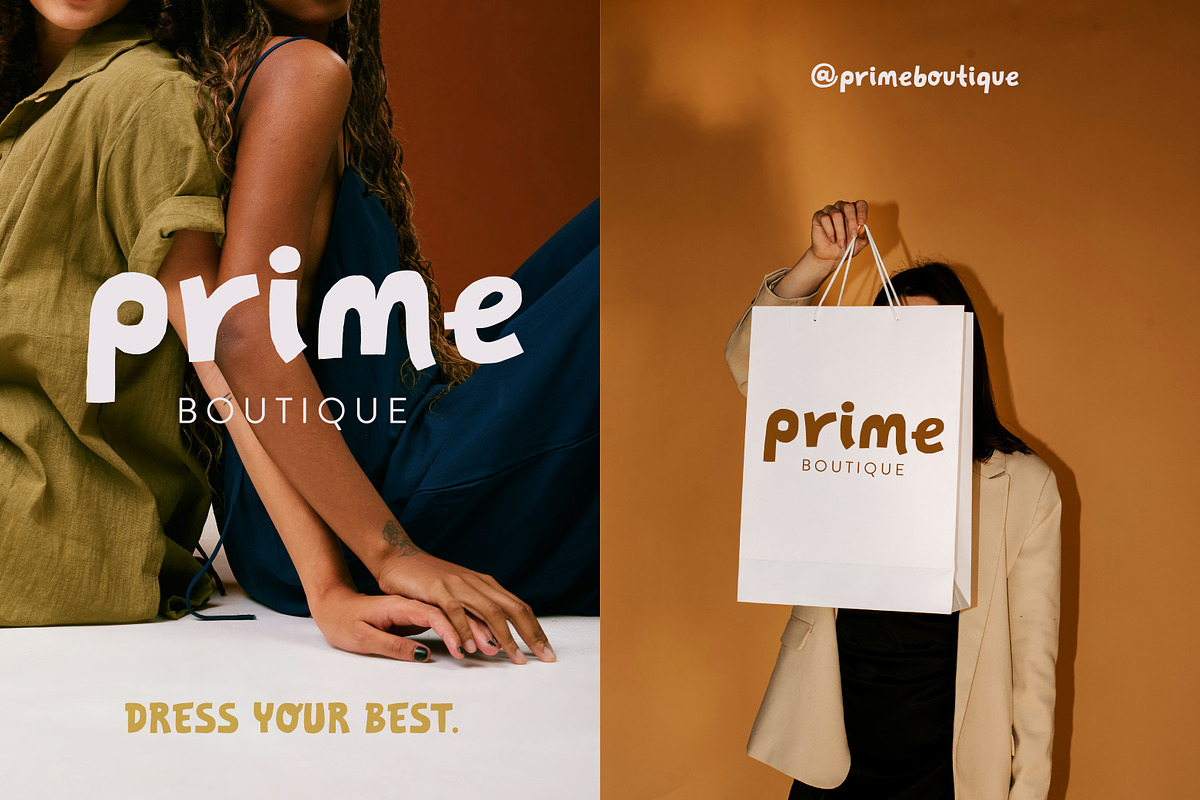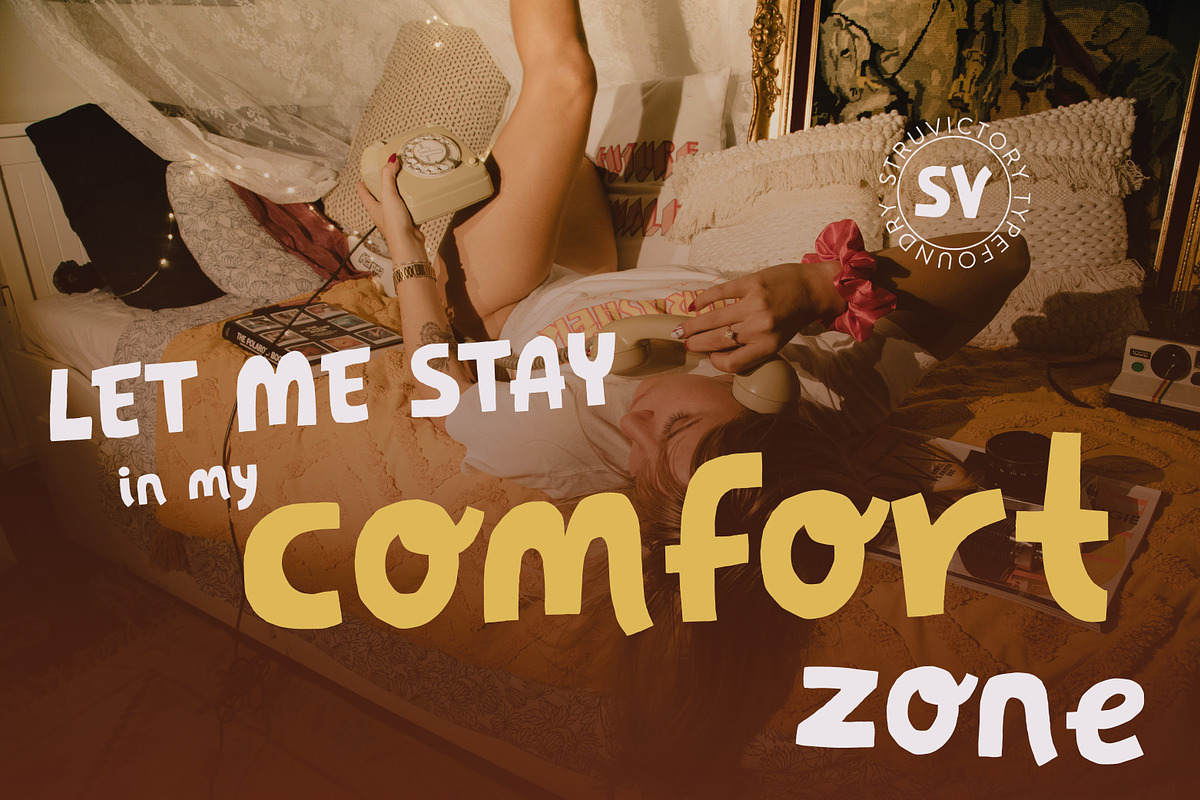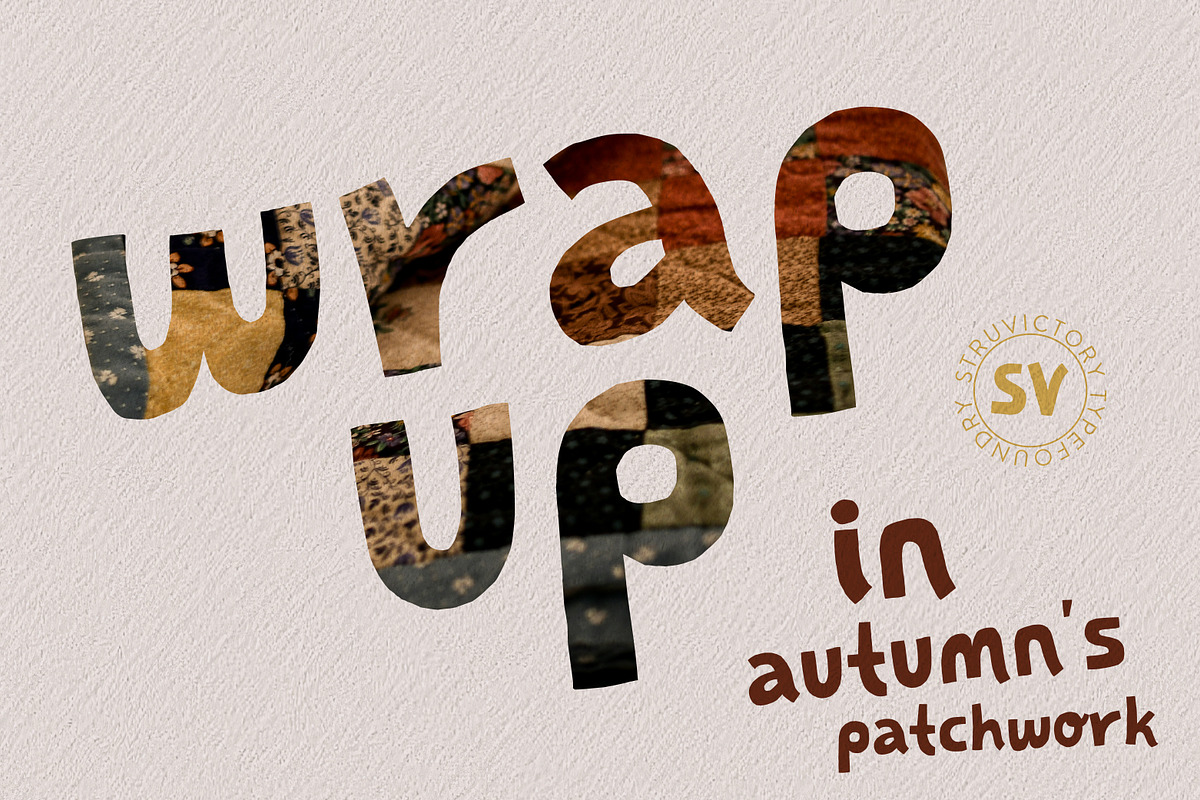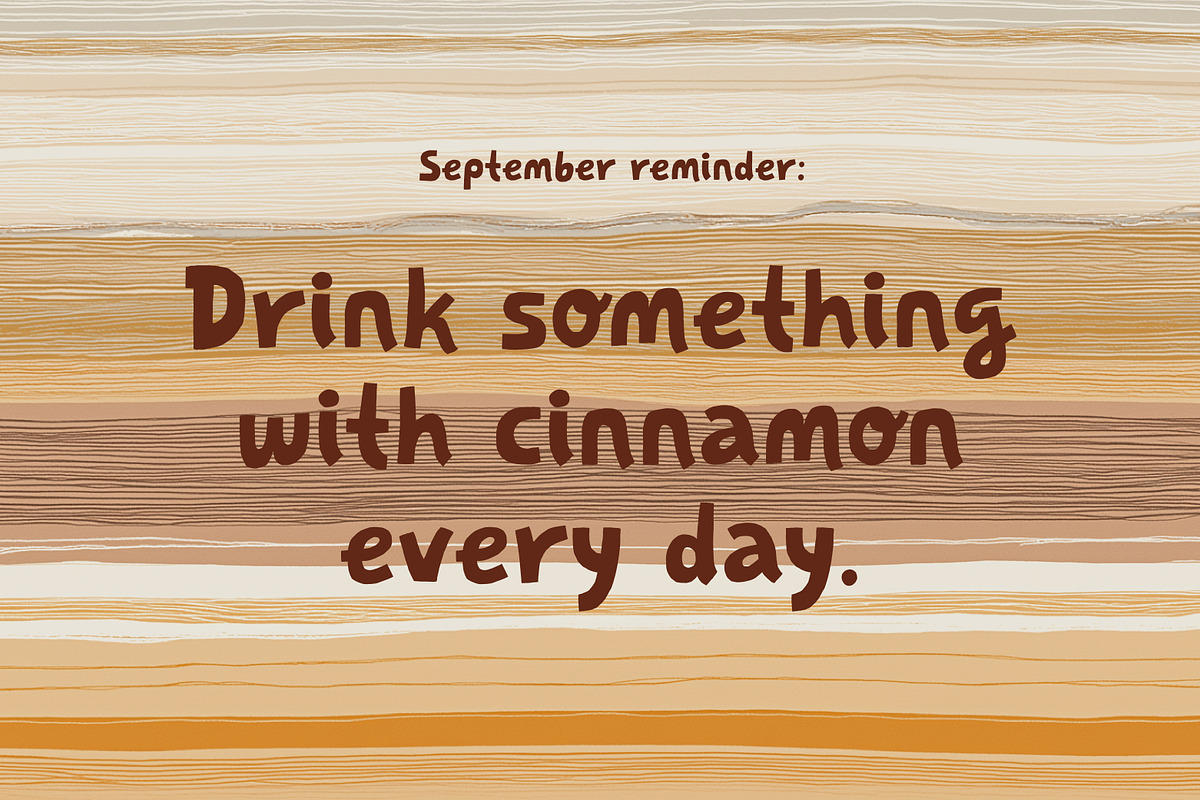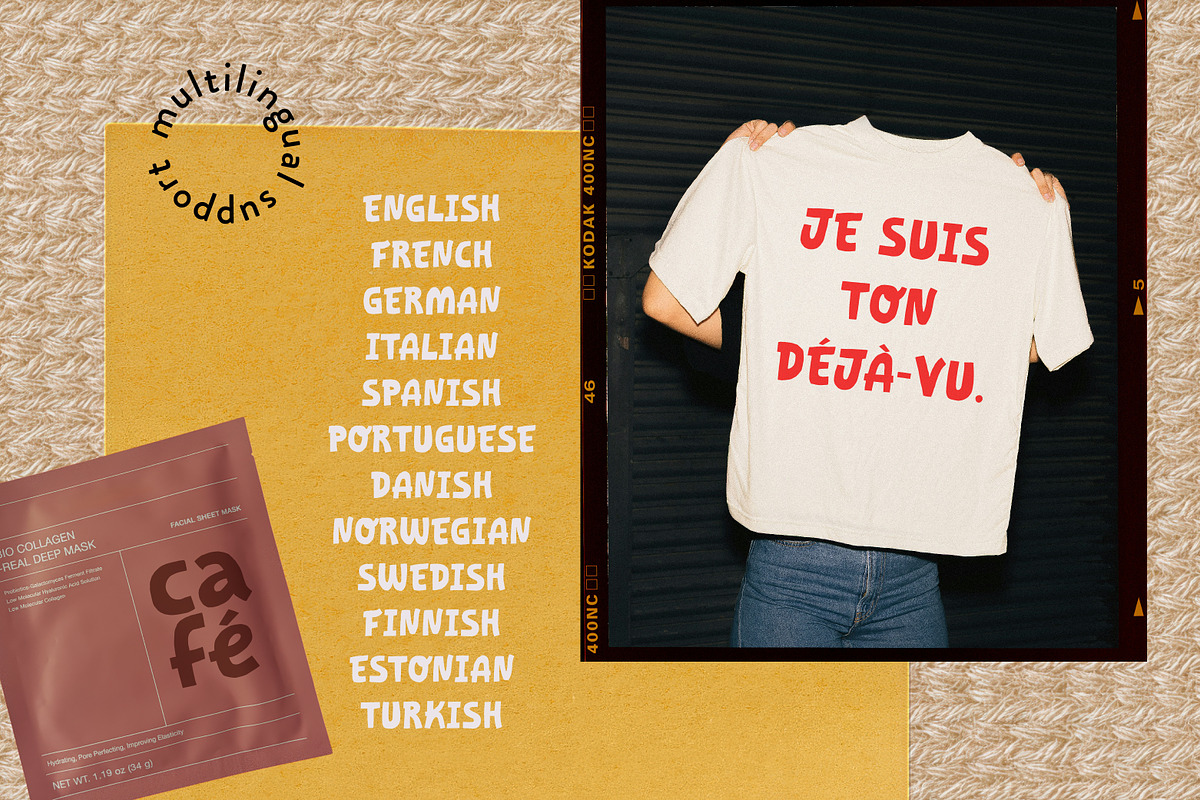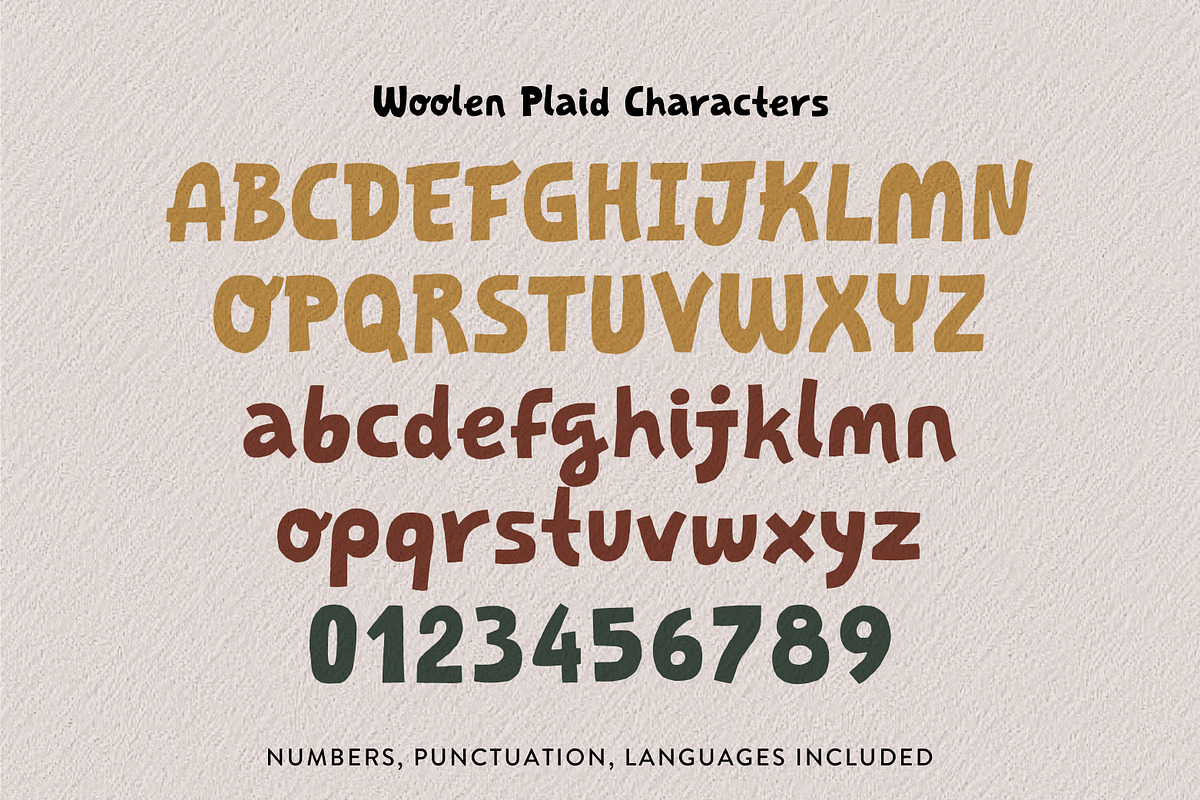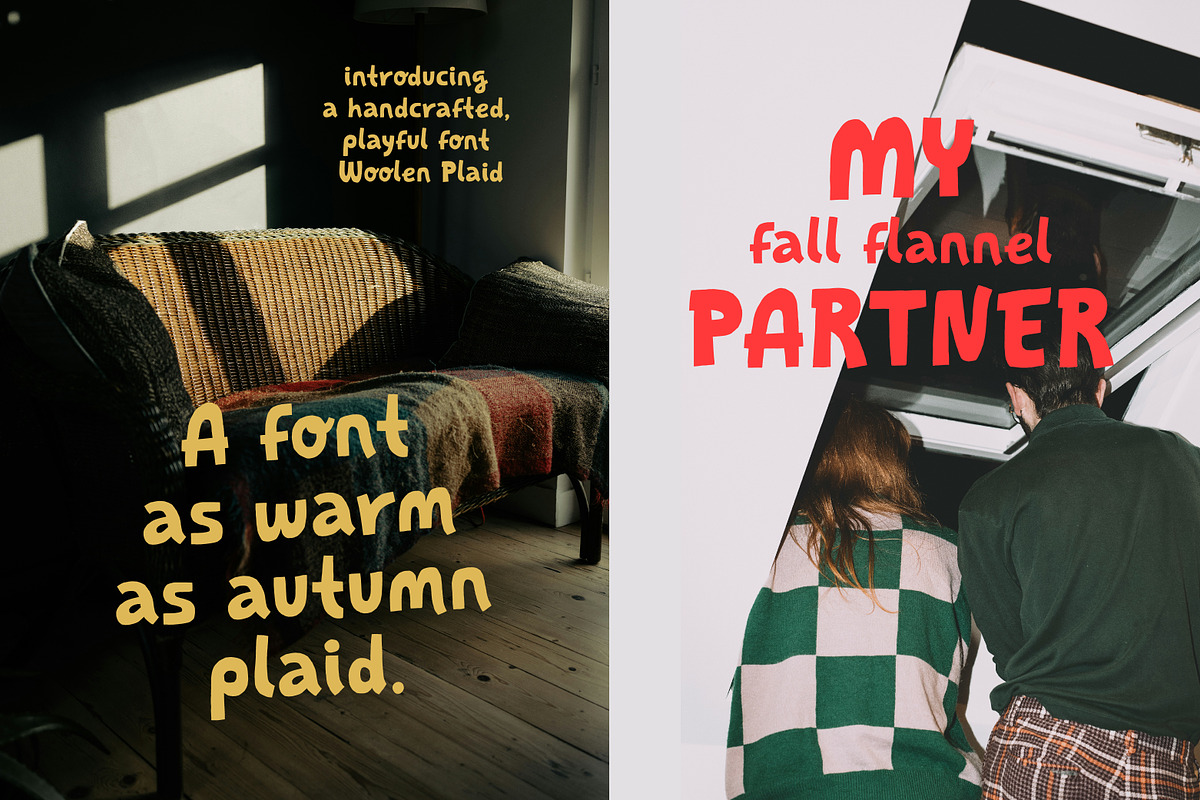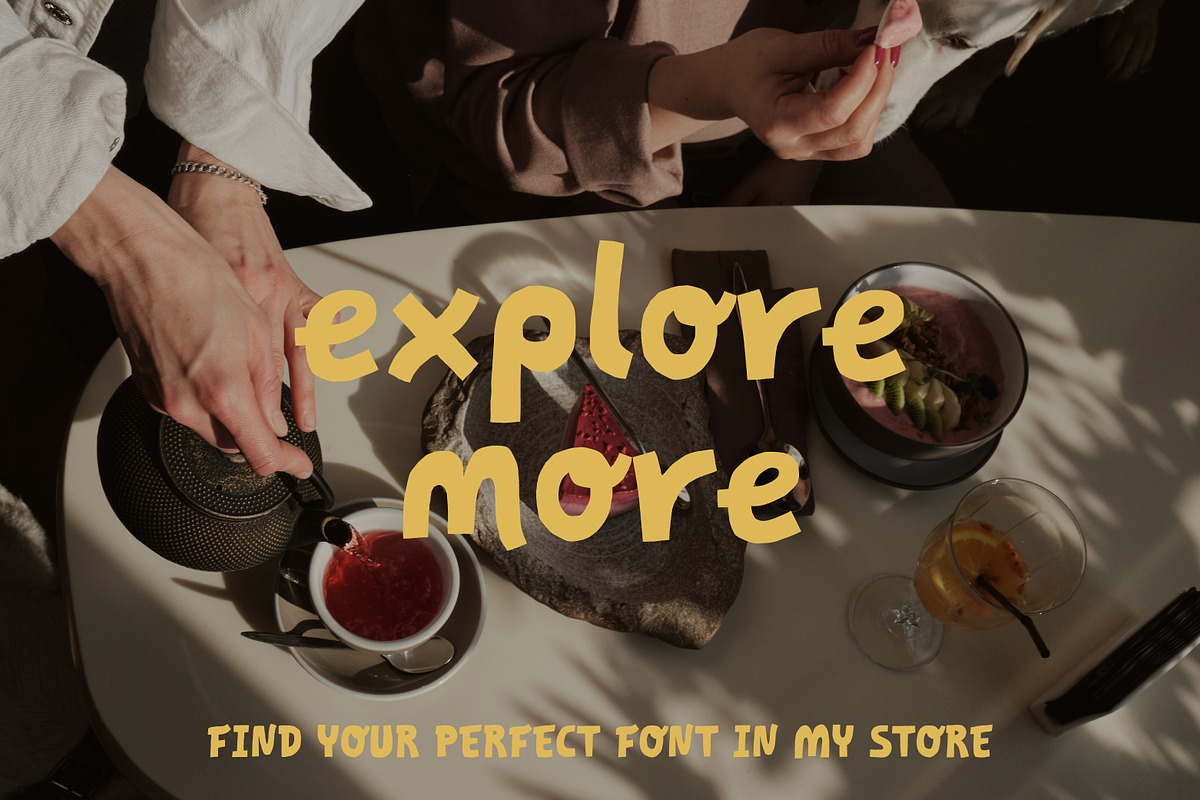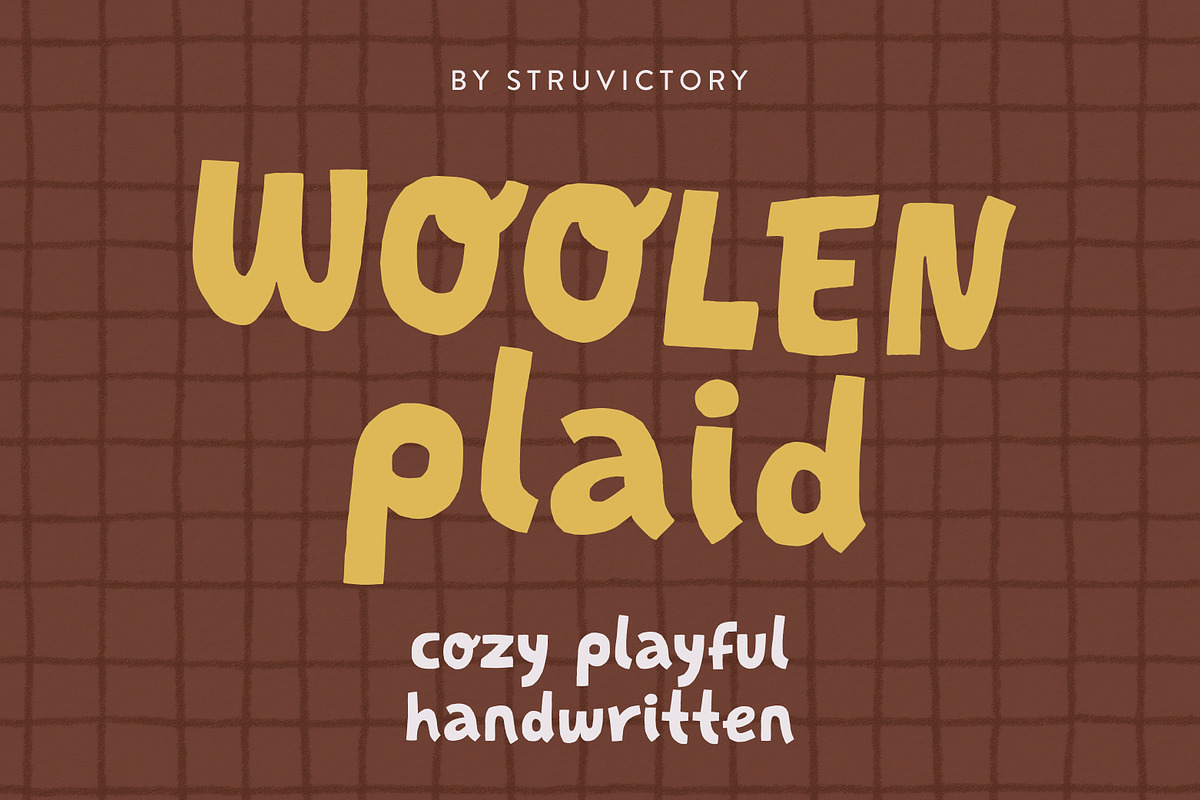
WoolenPlaid Autumn Cozy Playful Sans
Woolen Plaid Sans is a cozy handwritten display font that captures the warmth of autumn and the charm of slow living. With its playful curves and soft, hand-drawn texture, it feels like wrapping your words in a favorite sweater. Perfect for seasonal branding, cozy café menus, lifestyle blogs, packaging, invitations, or anything that calls for a touch of warmth and friendliness. This font brings a handmade, authentic vibe to your projects — playful yet versatile, modern yet timeless.
Woolen Plaid Sans supports the most popular latin-based languages, you can check the symbol you need by typing a couple of words in the font preview box.